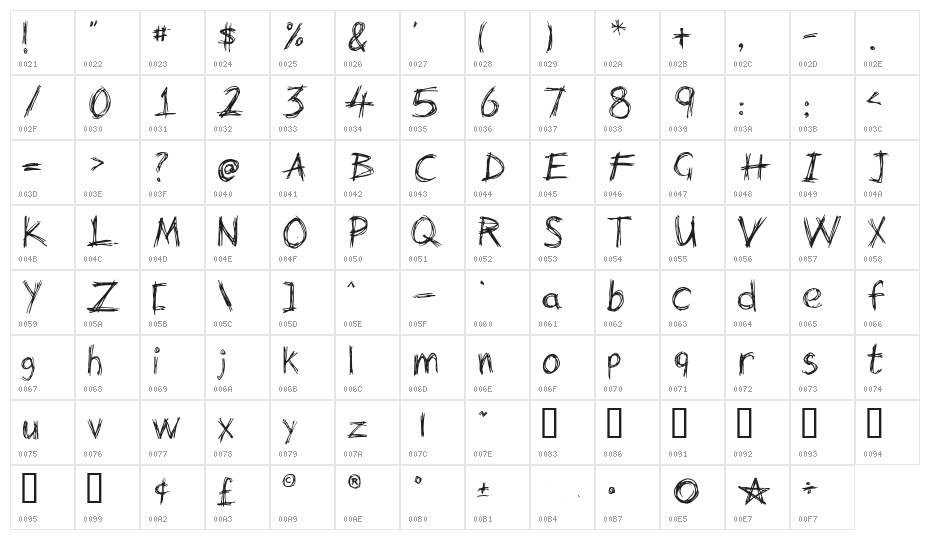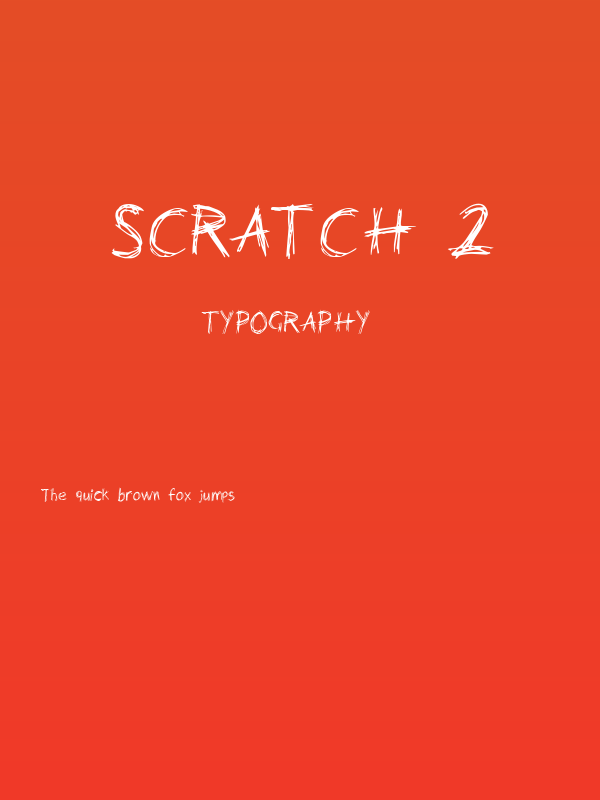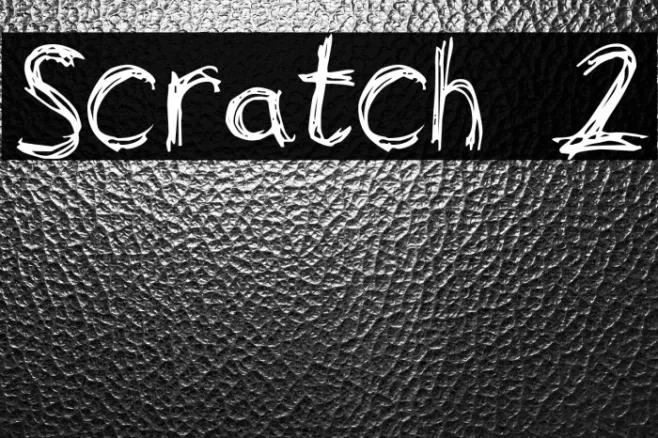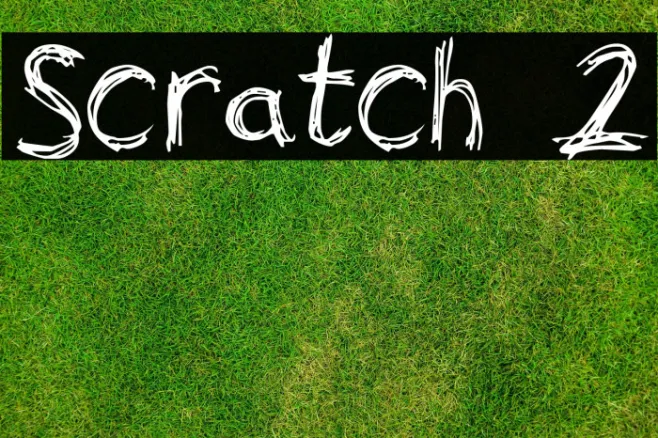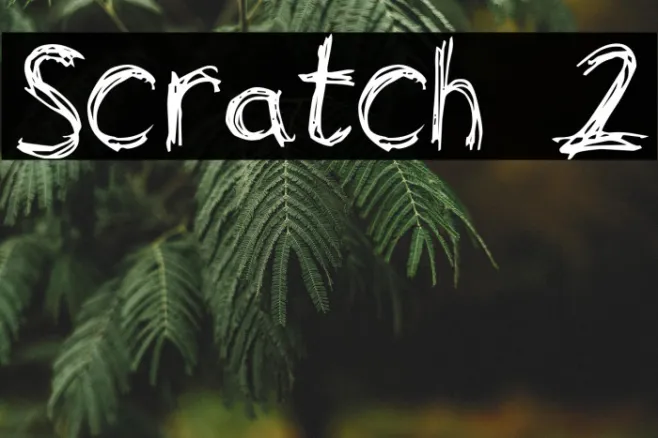
Scratch 2 Font
Scratch 2 Description
This font features a dynamic and edgy style, characterized by its rough, hand-drawn appearance. The letters are uneven and jagged, giving off a sense of energy and spontaneity. The strokes are irregular, with varying thickness that adds to the chaotic yet artistic feel. This font captures a raw, expressive quality, making it ideal for projects that require a bold and unconventional look. The uppercase and lowercase letters maintain a consistent style, while the numbers and special characters complement the overall design with their similarly rugged appearance.
| Overall Style | Modern, Artistic |
| Proposed Projects | Ideal for album covers, graffiti art, edgy posters, and creative branding. |